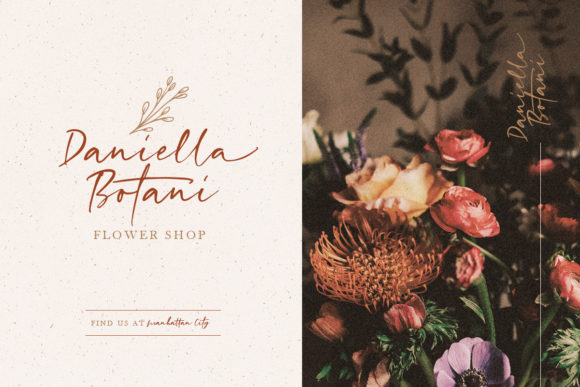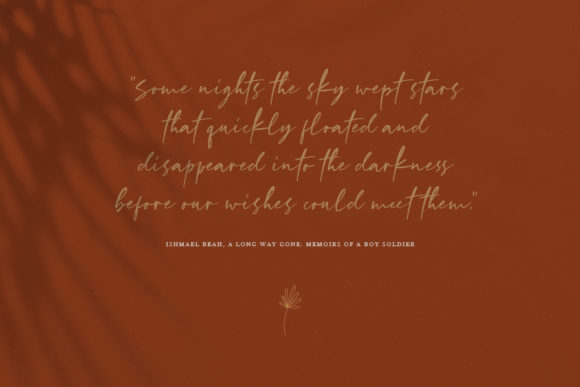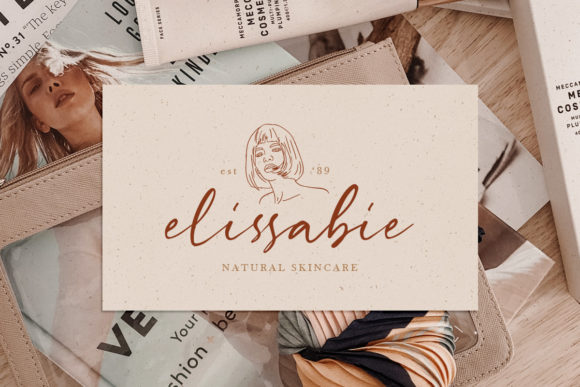
Introduction to Girly Moods Font
Have you ever been in the middle of a creative project, and you just can’t seem to find the right font to bring it all together? That’s where the magic of the Girly Moods Font comes in – a gorgeous and light script that radiates authenticity and adds a touch of femininity to any design.
Whether you’re working on a free download for a fashion blog or designing a high-quality brochure for a beauty brand, the Girly Moods Font is the perfect design resource to take your project to the next level. With its transparent background and delicate lettering, this font is sure to add a level of sophistication and elegance to any design.
As a designer, you know how valuable it is to have access to high-quality fonts that can elevate your work and make it stand out. That’s exactly what the Girly Moods Font offers – a unique and versatile font that’s perfect for any creative project.
Key Features of Girly Moods Font
- Unique Hand-Drawn Design: Girly Moods Font features a delicate, hand-drawn design that adds a touch of whimsy to any creative project.
- Multi-Layered Design: The font features a multi-layered design, making it easy to customize and manipulate individual elements to create a unique look.
Honest Review: Girly Moods Font
As a designer, I’m always on the lookout for new design resources to elevate my creative projects. Recently, I had the chance to try out the Girly Moods Font, and I’m excited to share my honest review.
- ✨ High-quality typography: The font has a beautiful, elegant feel to it, making it perfect for feminine-themed designs.
- ⚠️ Limited character set: The font only includes a limited set of characters, which might be a drawback for some designers.
- ⚠️ Not suitable for bold text: The font can be a bit too delicate for bold text, which might not be ideal for certain design projects.
Overall, I think the Girly Moods Font is a great addition to any designer’s toolkit. While it has some limitations, its high-quality typography and free download make it a valuable resource for creative projects. With a little creativity, I think designers can work around the limitations and get the most out of this beautiful font.
For the most out of the Girly Moods Font, use it for designs with a transparent background to create a subtle and elegant look. Common use cases include:
- Girls’ birthday party decorations and invitations
- Blog and social media graphics